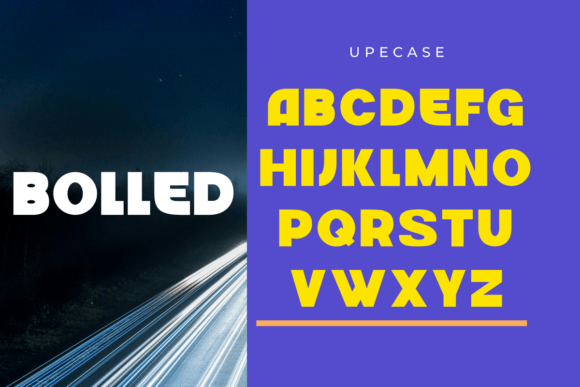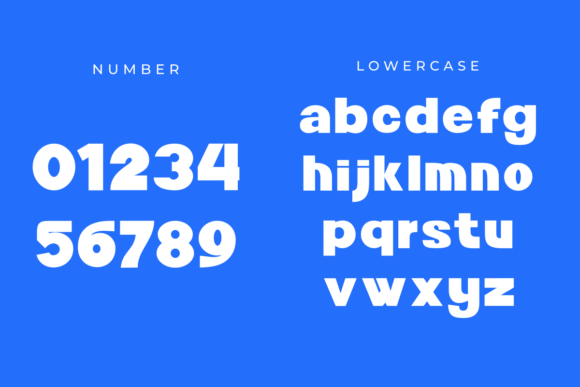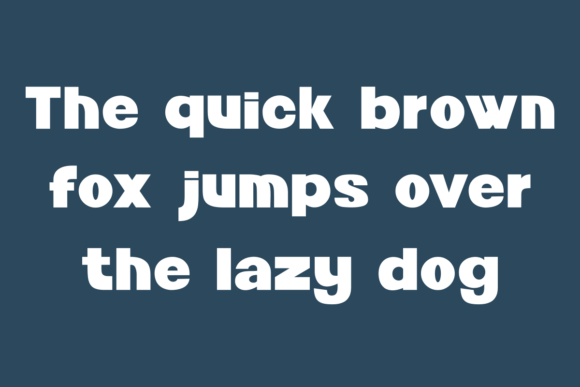
Introducing Bolled Font: Elevate Your Designs with Bold Style and Versatility
In the world of typography, a font can make or break a design. It’s the foundation upon which the entire visual aesthetic is built. For designers and crafters looking to make a statement, Bolled Font is an exceptional choice. This bold font comes with not one, but two style variations – oblique and regular – designed to create a strong and flexible impression in any design.
Bolled Oblique: Dynamic and Modern
Bolled Oblique is not just any ordinary font. Its thick, slightly slanted characters give off a dynamic and modern vibe that’s perfect for headlines or any design elements meant to stand out. The subtle slant adds a touch of sophistication and movement, making it ideal for designs that require a bit of flair. Whether you’re working on a poster, a magazine cover, or a website header, Bolled Oblique is sure to capture attention and leave a lasting impression.
Bolled Regular: Professional and Readable
On the other hand, Bolled Regular offers a bold, upright, and stable shape that’s perfect for text that requires high readability and a professional feel. This font is a powerhouse for body text, articles, and any content where clarity and legibility are paramount. Its clean lines and robust structure ensure that your message is conveyed with authority and elegance, making it suitable for business cards, brochures, and even e-books.
The Power of Combination
The true beauty of Bolled Font lies in the combination of its two styles – oblique and regular. This versatility allows designers to blend dynamic and formal tones into one powerful and harmonious visual layout. Imagine pairing the eye-catching Bolled Oblique for headings with the crisp, professional Bolled Regular for body text. The result is a visually appealing hierarchy of information that guides the reader’s eye and enhances the overall reading experience.
Why Choose Bolled Font?
So, why should designers and crafters choose Bolled Font for their projects? Here are a few compelling reasons:
- Versatility: With two style variations, Bolled Font offers flexibility that can cater to a wide range of design needs.
- Legibility: Both styles are designed with readability in mind, ensuring that your message is always clear and easily understood.
- Aesthetic Appeal: The bold and oblique styles add a modern touch to any design, making it more engaging and visually appealing.
- Professionalism: Bolled Font exudes a sense of professionalism, making it suitable for corporate and business designs.
Tips for Using Bolled Font Effectively
To make the most out of Bolled Font, consider the following tips:
- Contrast is Key: Use Bolled Oblique for headings and Bolled Regular for body text to create a clear visual hierarchy.
- Play with Sizes: Experiment with different font sizes to emphasize certain elements and create visual interest.
- Color Matters: Choose colors that complement the boldness of the font, ensuring your design doesn’t feel overwhelming.
- Spacing is Crucial: Pay attention to line spacing and margins to maintain readability and prevent the design from feeling cramped.
Bolled Font is more than just a typeface – it’s a design tool that offers the perfect blend of style, versatility, and readability. Whether you’re a designer looking to elevate your project or a crafter seeking the perfect font for your artistic endeavors, Bolled Font is an excellent choice. Its two style variations – Bolled Oblique and Bolled Regular – provide the flexibility needed to create a wide range of designs, from modern and dynamic to professional and elegant. By incorporating Bolled Font into your projects, you’ll not only enhance the visual appeal but also ensure that your message is conveyed with clarity and impact.